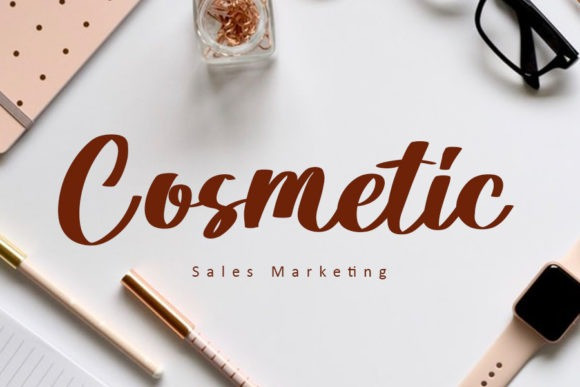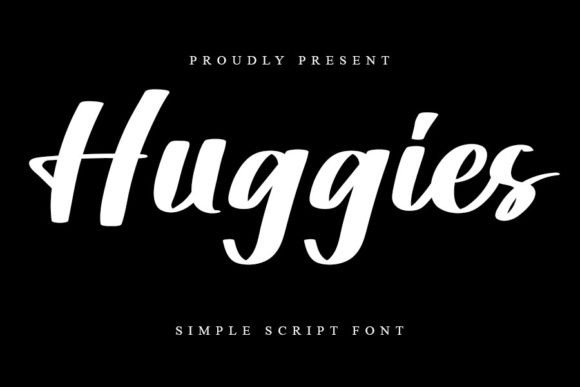
Huggies Font
Huggies Script Font is a chic, trendy and thick lettered handwritten font. It is the best choice for creating eye catching logos, branding and quotes. Every letter has a unique and beautiful touch, which will make your design come alive!